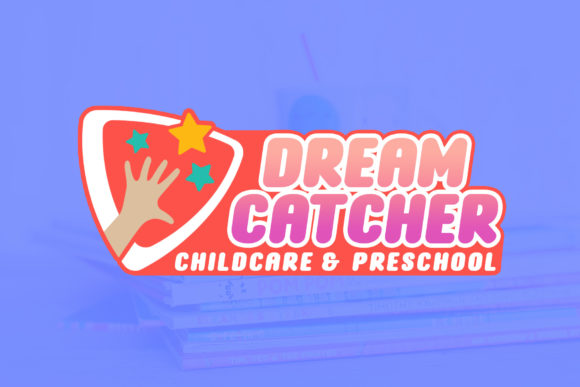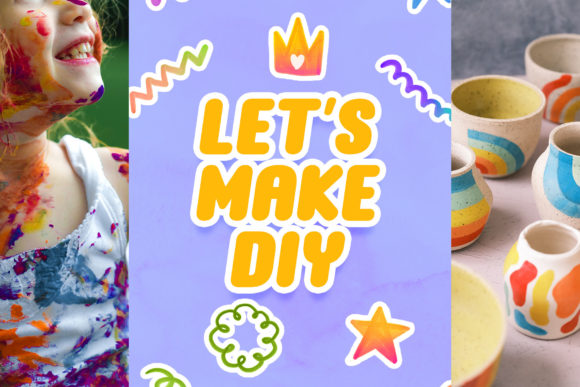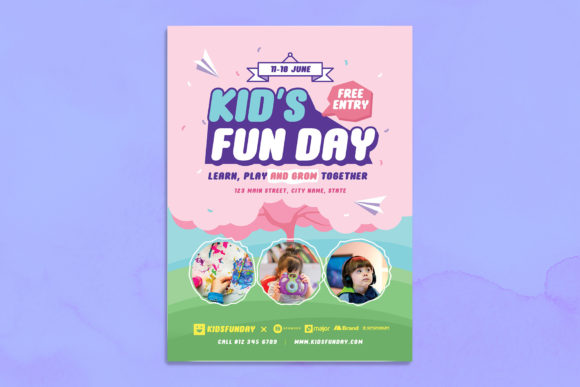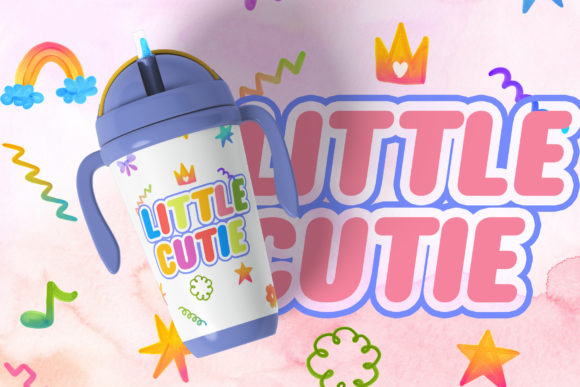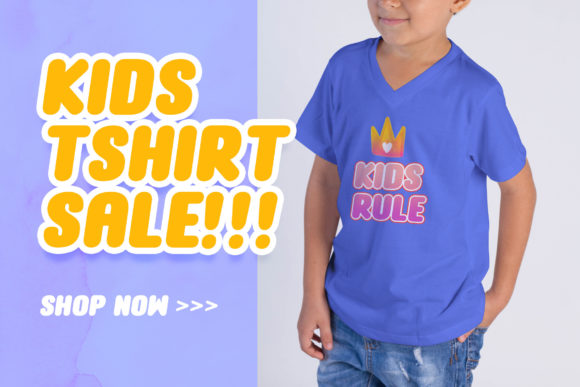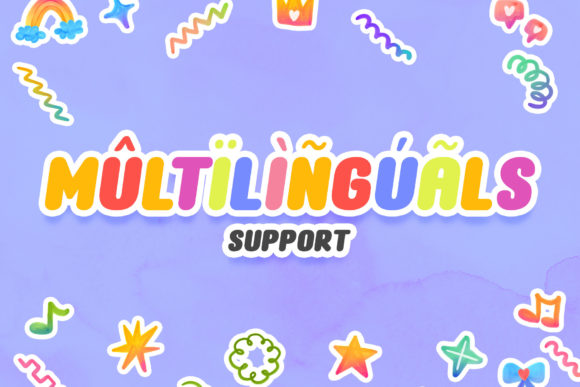
Introducing Funcom Font: The Ultimate Choice for Playful Designs
Are you a designer or crafter looking for a font that can add a touch of magic to your projects? Look no further than Funcom Font! This fun and playful font is specifically designed for kids and is perfect for a variety of projects, from logos and product packaging to T-shirt designs and more.
What Makes Funcom Font So Special?
Funcom Font is a unique and whimsical font that is sure to capture the attention of kids and adults alike. Its playful design features rounded edges and a carefree feel that makes it perfect for projects where you want to add a touch of fun and personality. Whether you’re designing a logo for a kids’ brand, creating a fun T-shirt design, or developing packaging for a children’s product, Funcom Font is the perfect choice.
Uses for Funcom Font
Funcom Font is incredibly versatile and can be used for a wide range of projects, including:
- Logos: Create a fun and memorable logo for a kids’ brand or business with Funcom Font.
- Product Packaging: Add a touch of playfulness to product packaging for kids’ products, such as toys, games, or treats.
- T-Shirt Design: Design fun and playful T-shirts for kids with Funcom Font.
- Stationery: Create fun and colorful stationery, such as stickers, invitations, and greeting cards, with Funcom Font.
- Digital Media: Use Funcom Font in digital media, such as videos, animations, and interactive games, to add a touch of whimsy and fun.
Why Designers and Crafters Love Funcom Font
Designers and crafters love Funcom Font for a variety of reasons, including:
- Playful Design: Funcom Font features a playful design that is sure to capture the attention of kids and adults alike.
- Versatility: Funcom Font is incredibly versatile and can be used for a wide range of projects.
- Uniqueness: Funcom Font is a unique font that will help your designs stand out from the crowd.
Tips for Using Funcom Font
Here are a few tips for using Funcom Font in your designs:
- Pair with Other Fonts: Pair Funcom Font with other fonts to create a unique and visually appealing design.
- Add Graphics: Add graphics and illustrations to your design to make it more visually appealing.
- Keep it Simple: Keep your design simple and easy to read to ensure that the focus is on the message.
Key Features of Funcom Font
- Language Support: Funcom Font supports a wide range of languages, including English, Spanish, French, and more.
FAQs About Funcom Font
Here are a few frequently asked questions about Funcom Font:
- Q: What is Funcom Font? A: Funcom Font is a fun and playful font designed specifically for kids.